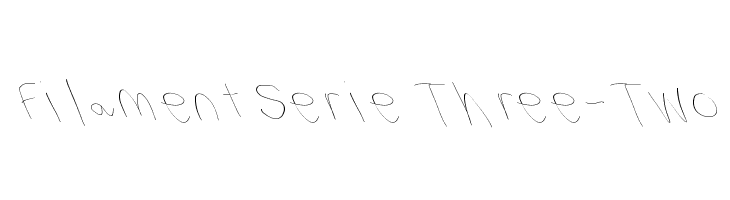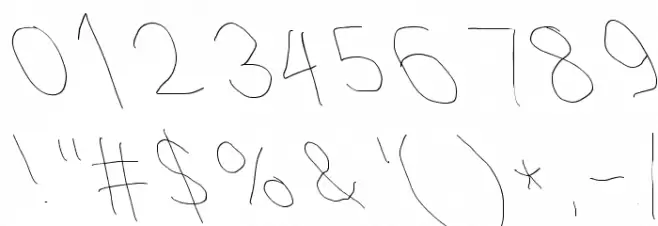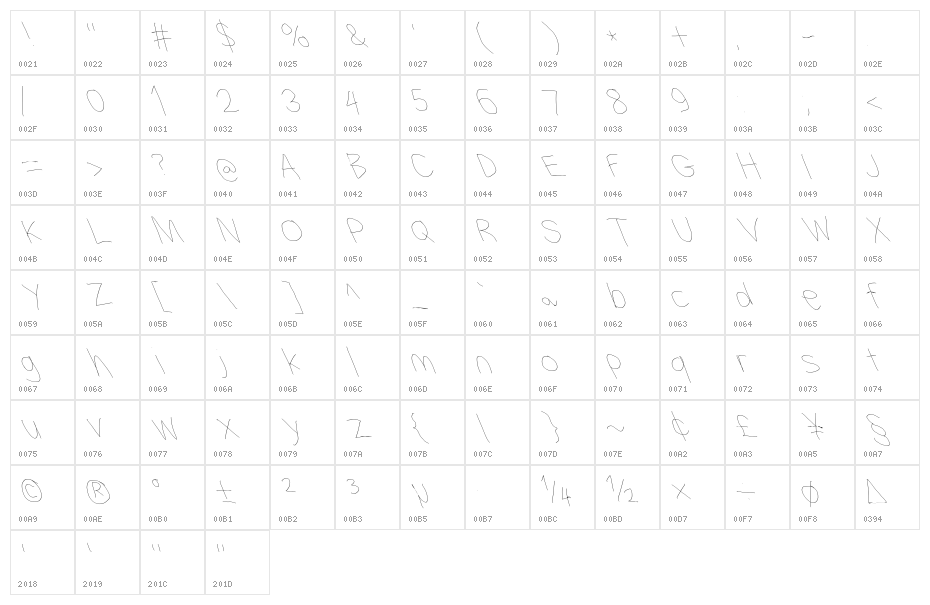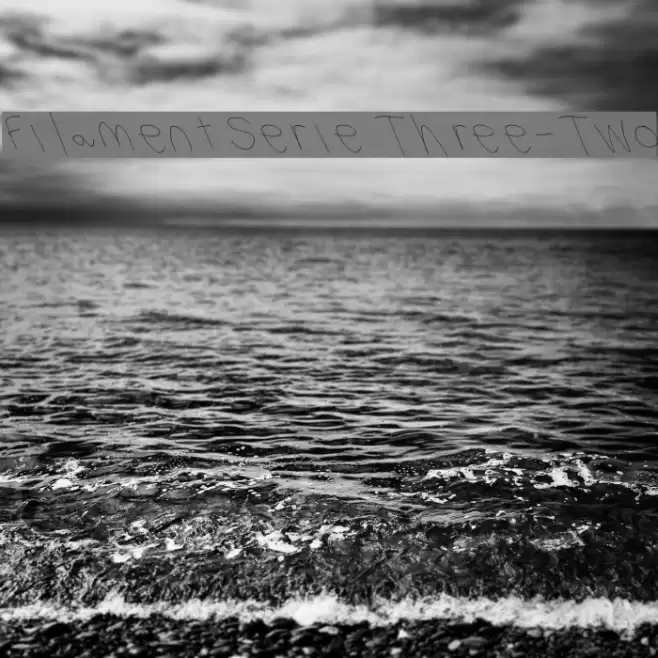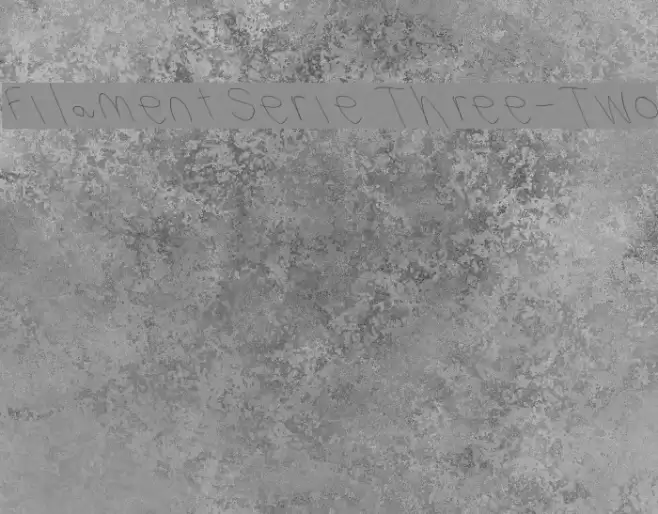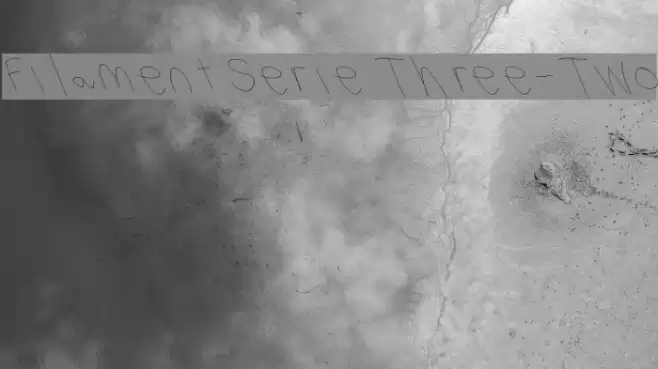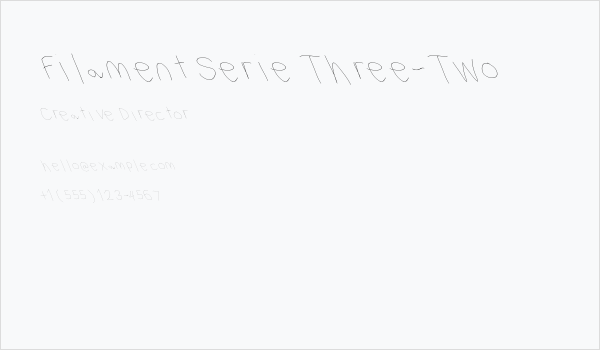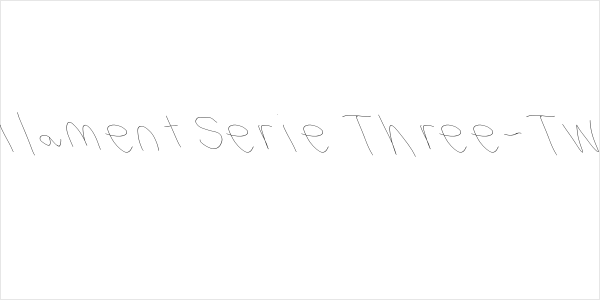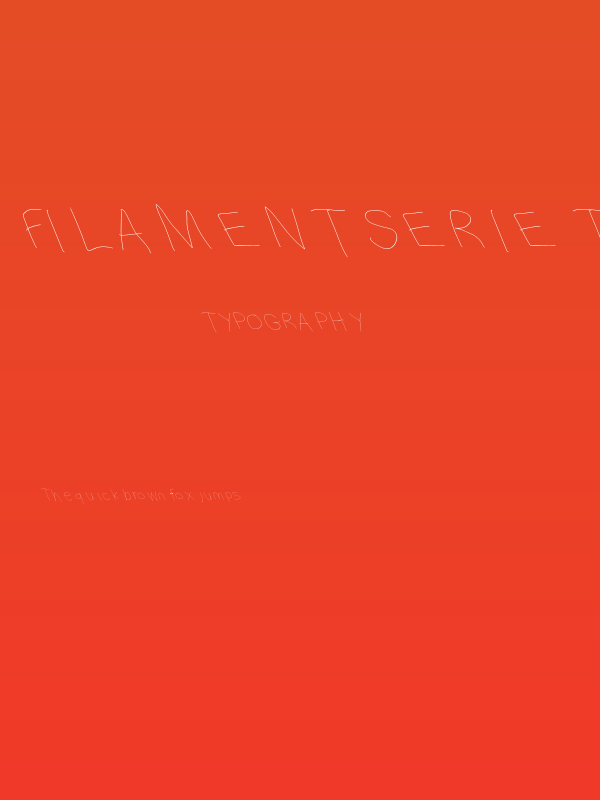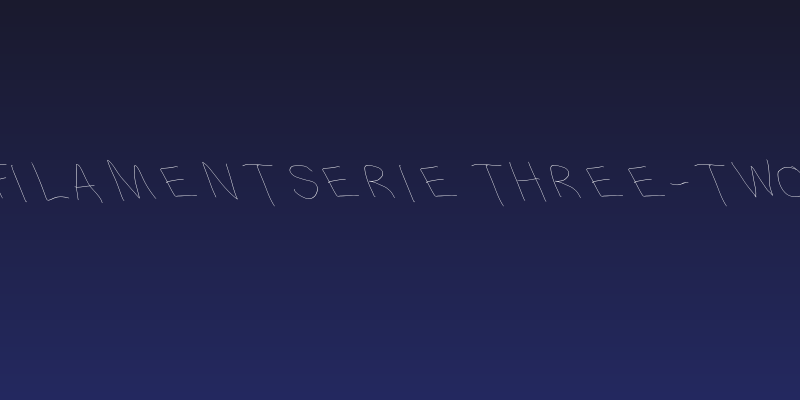
Filament Serie Three-Two Font
Filament Serie Three-Two Description
This font features a delicate, hand-drawn style with a casual and informal appearance. The letters are thin and slightly irregular, giving it a whimsical and playful feel. The strokes are consistent in their lightness, contributing to an airy and open look. The uppercase and lowercase letters maintain a cohesive style, with rounded edges and a slight slant, reminiscent of a personal handwriting style. Numbers and special characters follow the same aesthetic, ensuring uniformity across the font. This font's unique character is perfect for projects that require a personal touch or a creative flair.
| Proposed Projects | Ideal for greeting cards, personal invitations, children's books, and creative branding projects. |